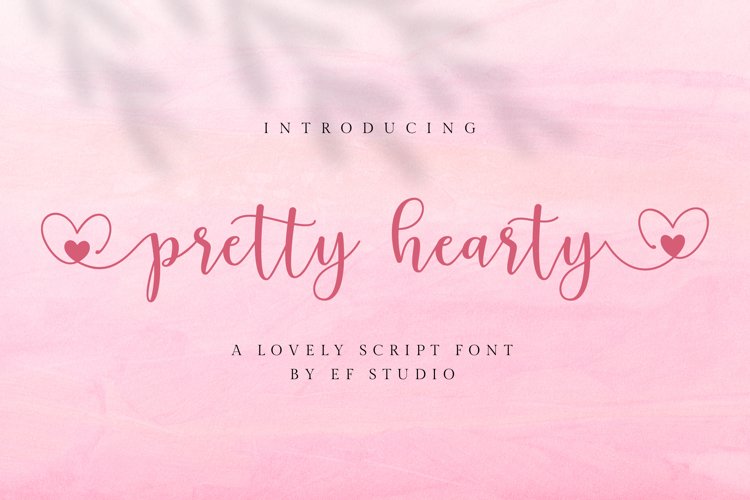
Lovely Girls is a beautiful chic script that is suitable for branding, wedding invitations, and other romantic projects.
- ending swash Connecting heart ,Stylistic Alternates & Ligatures